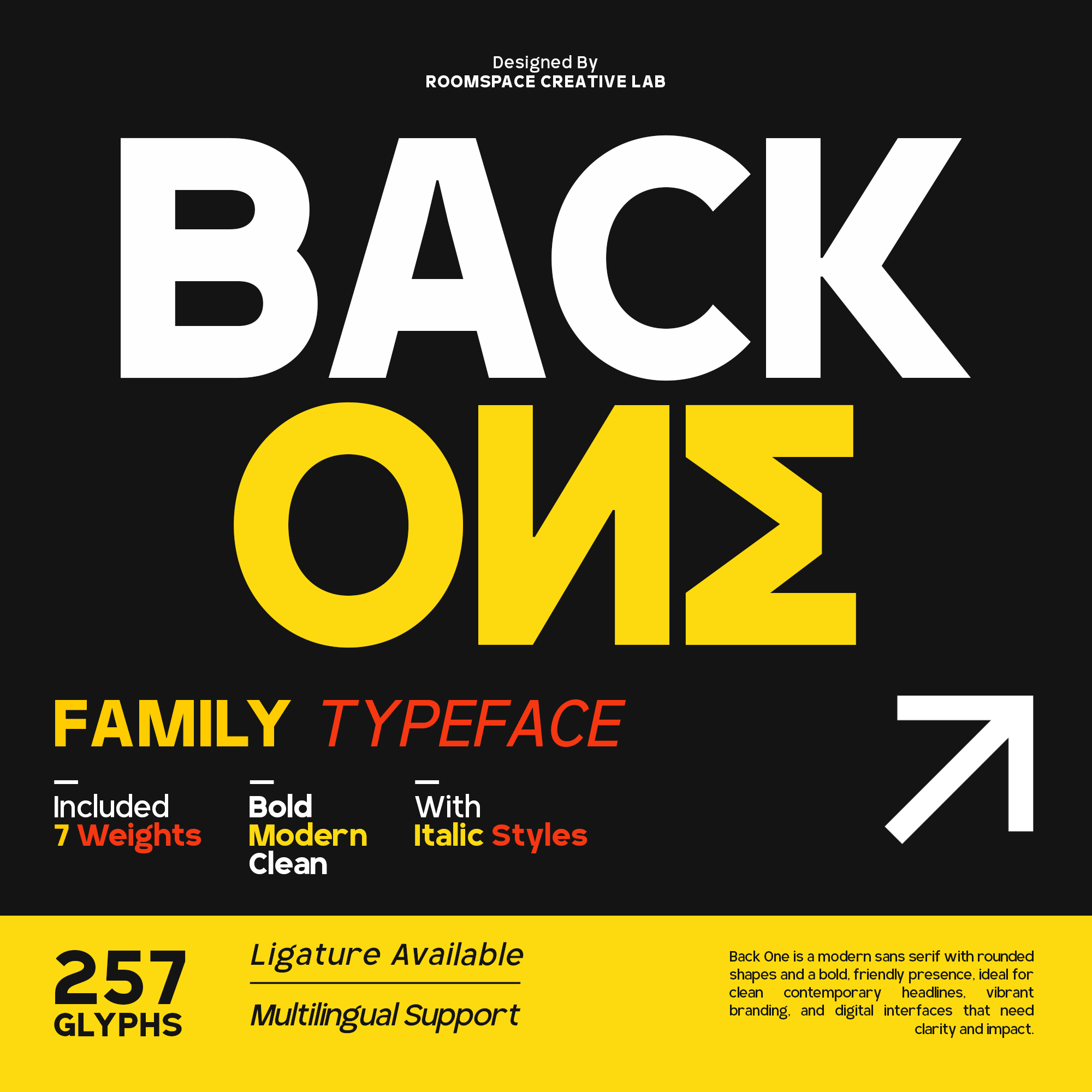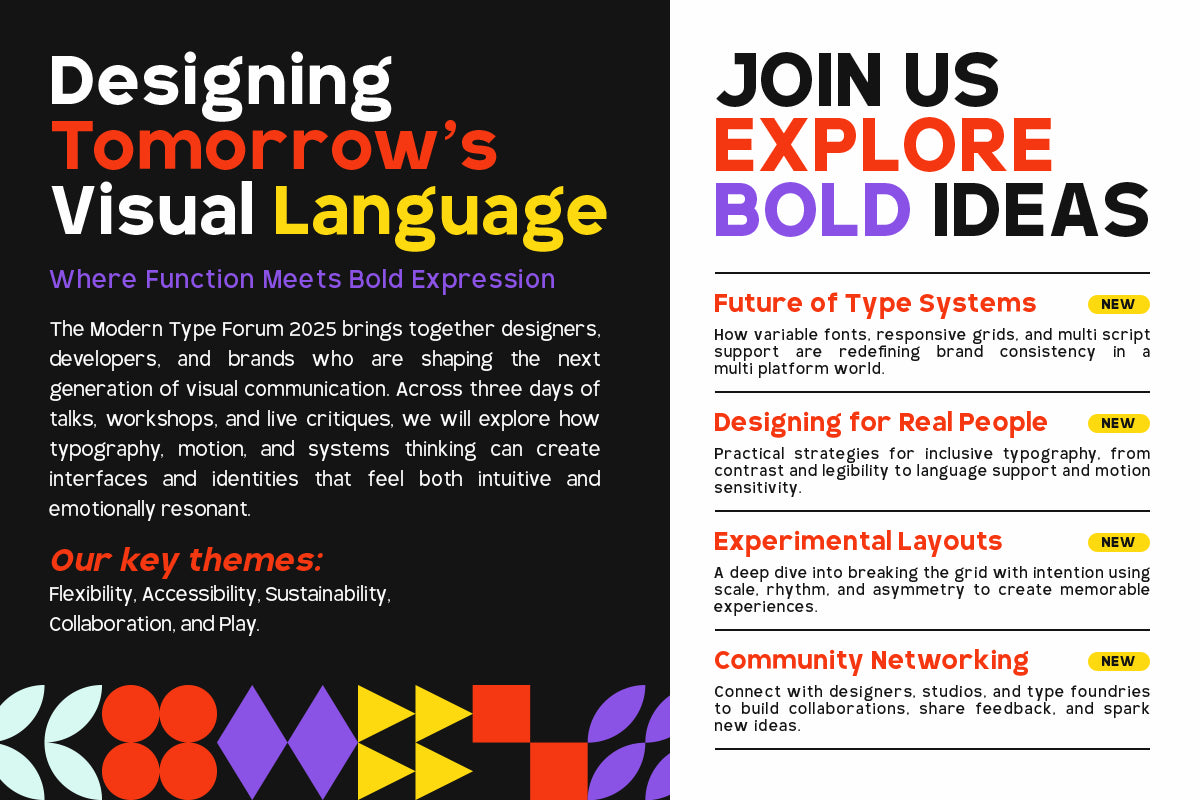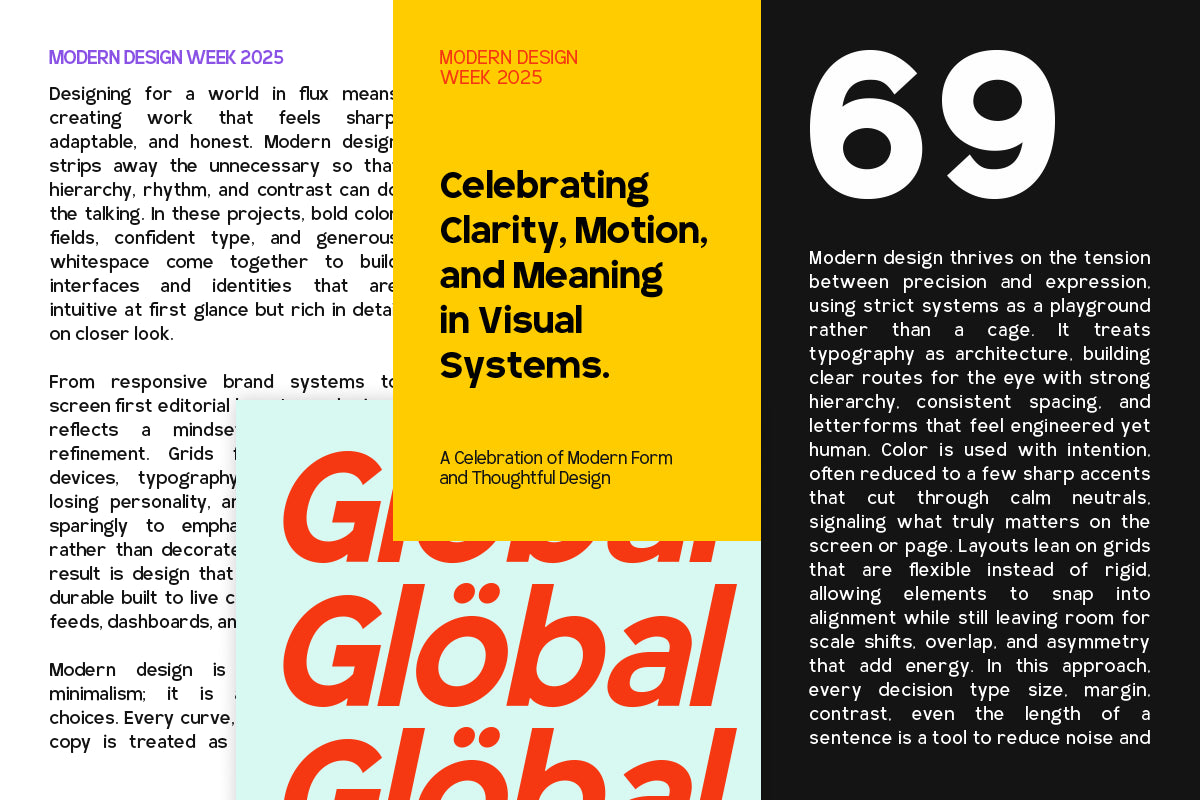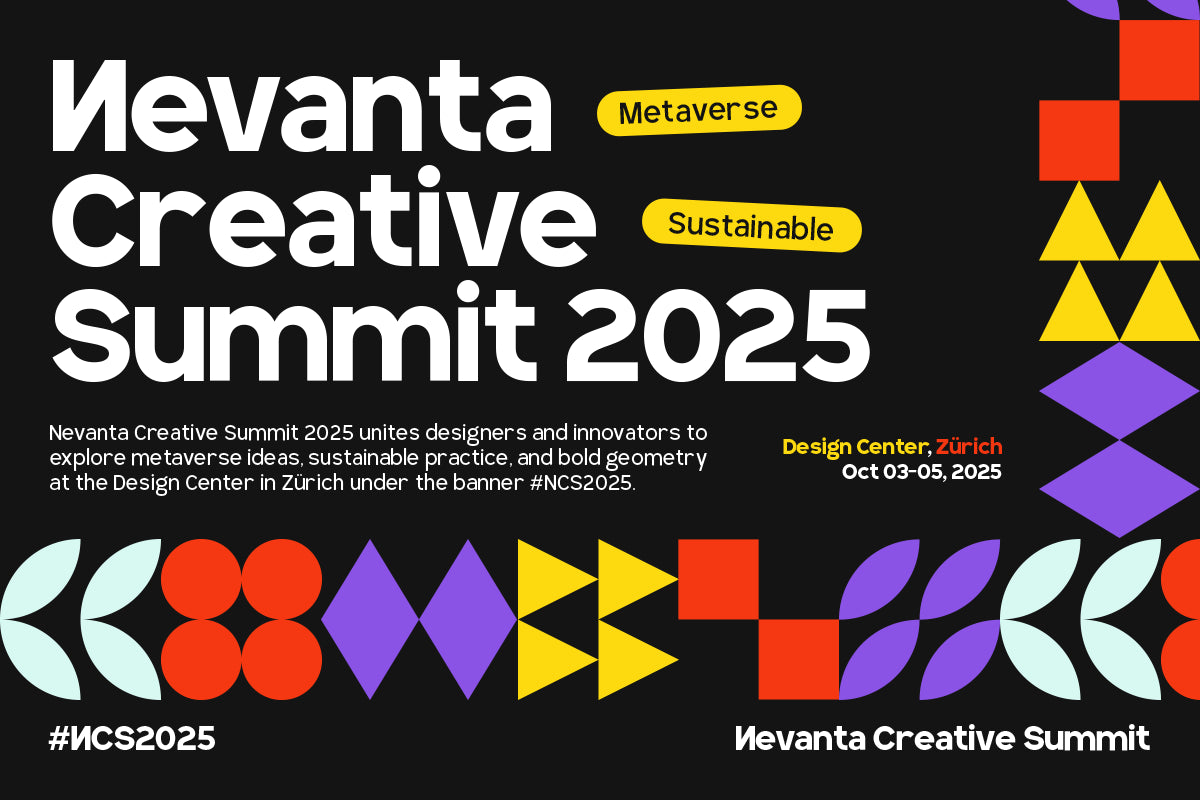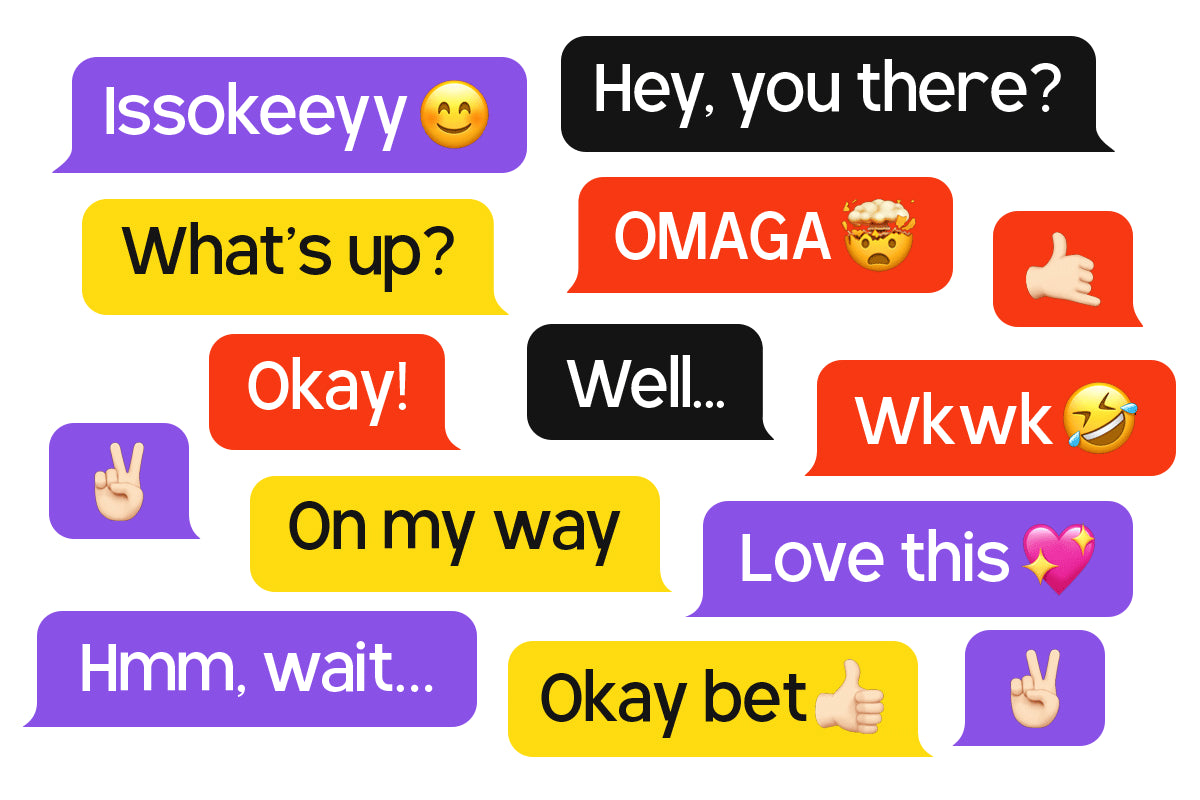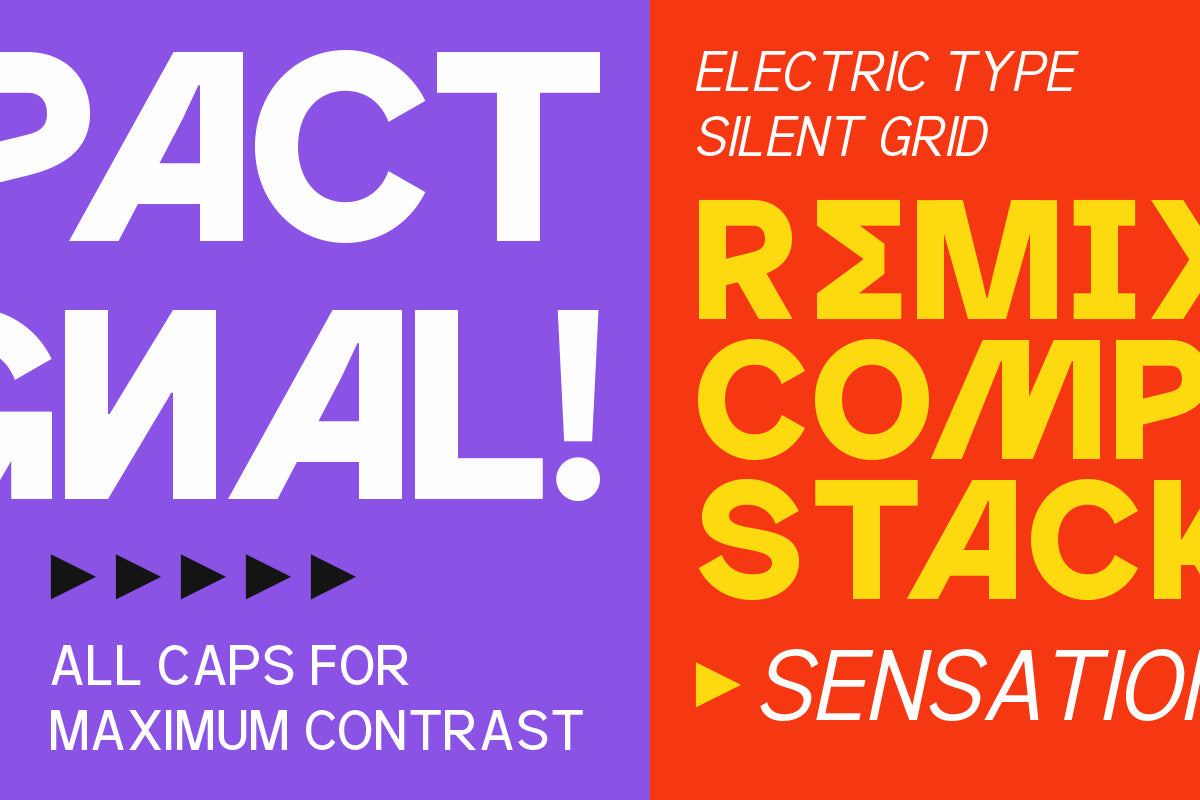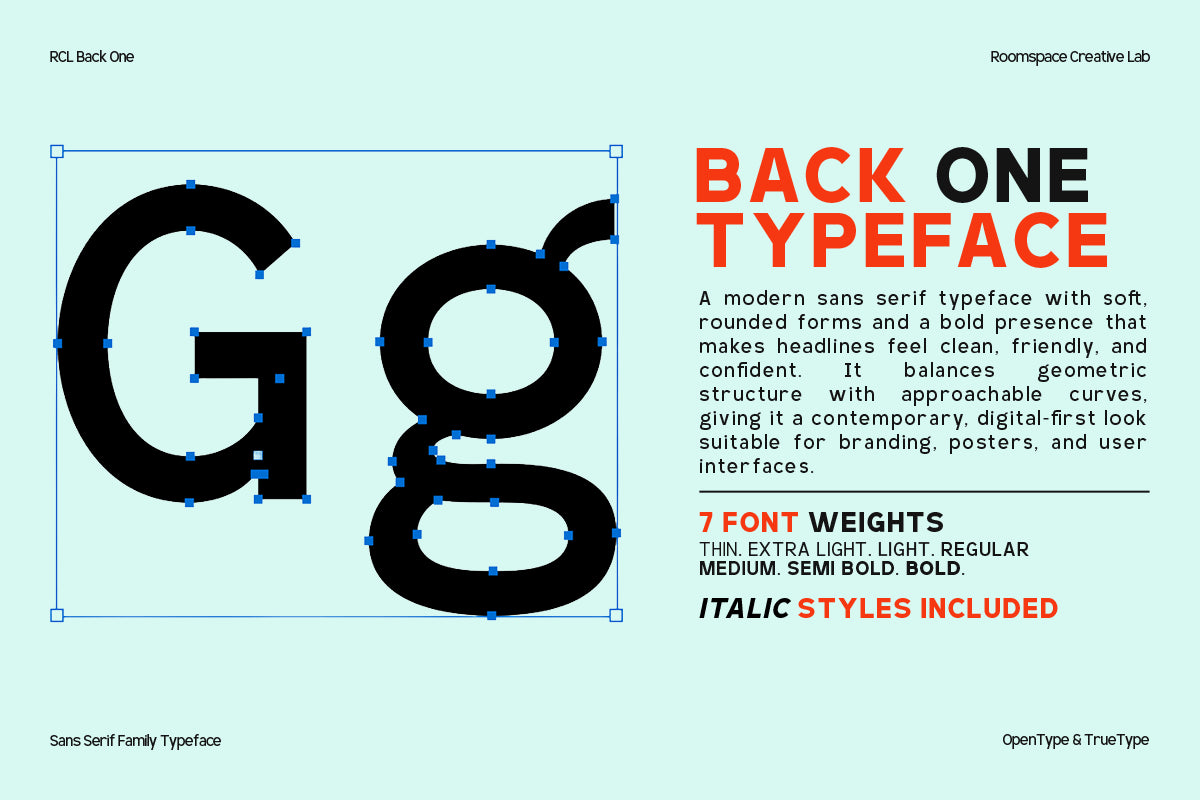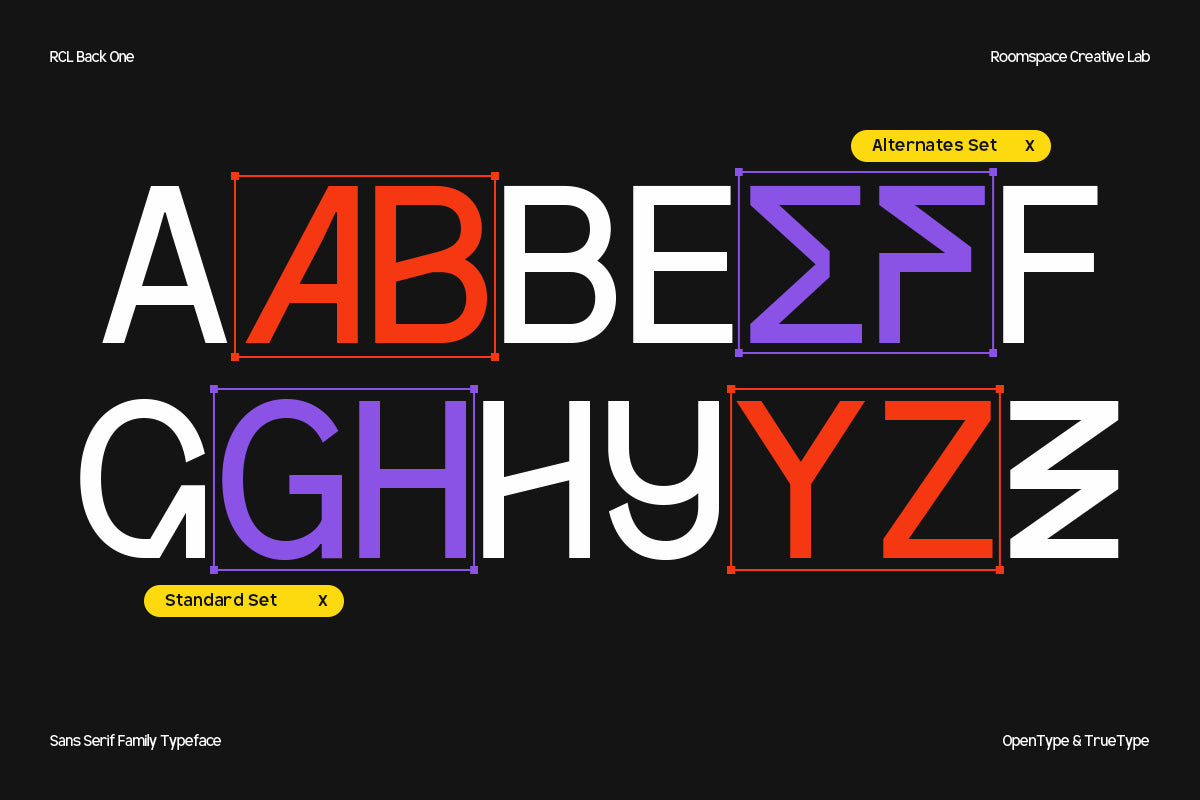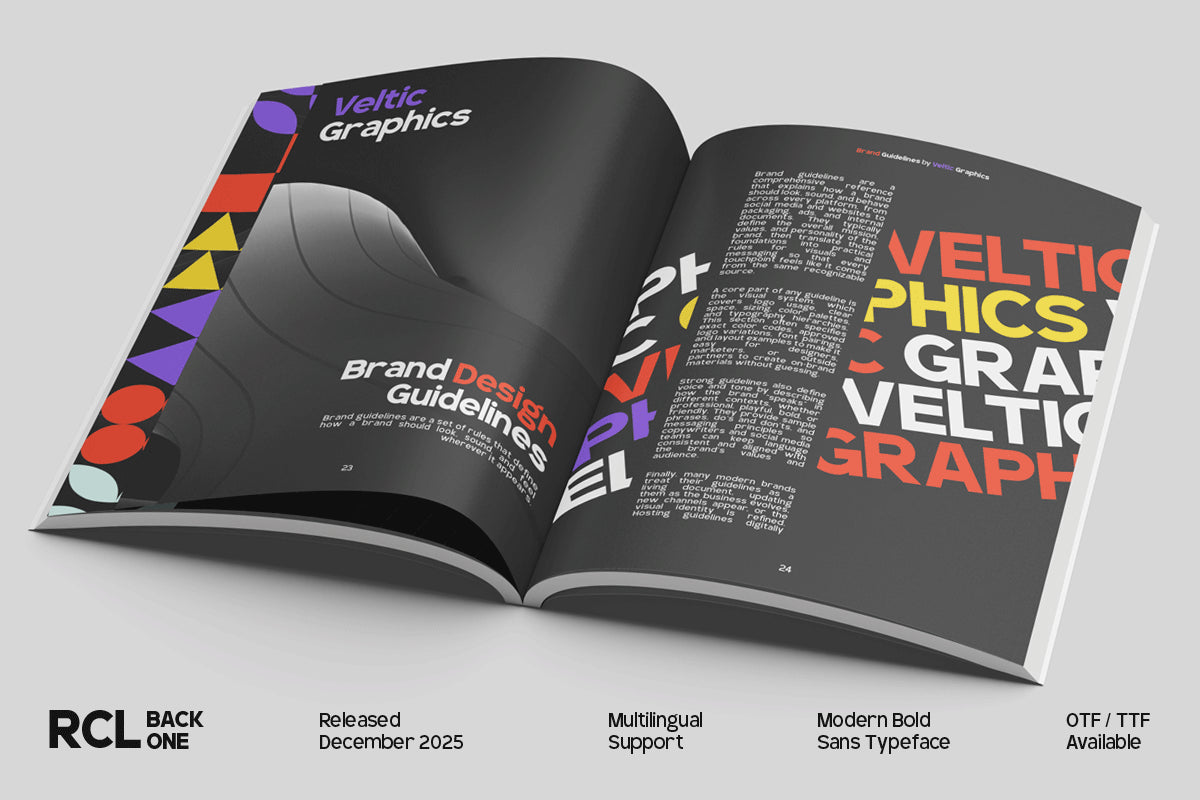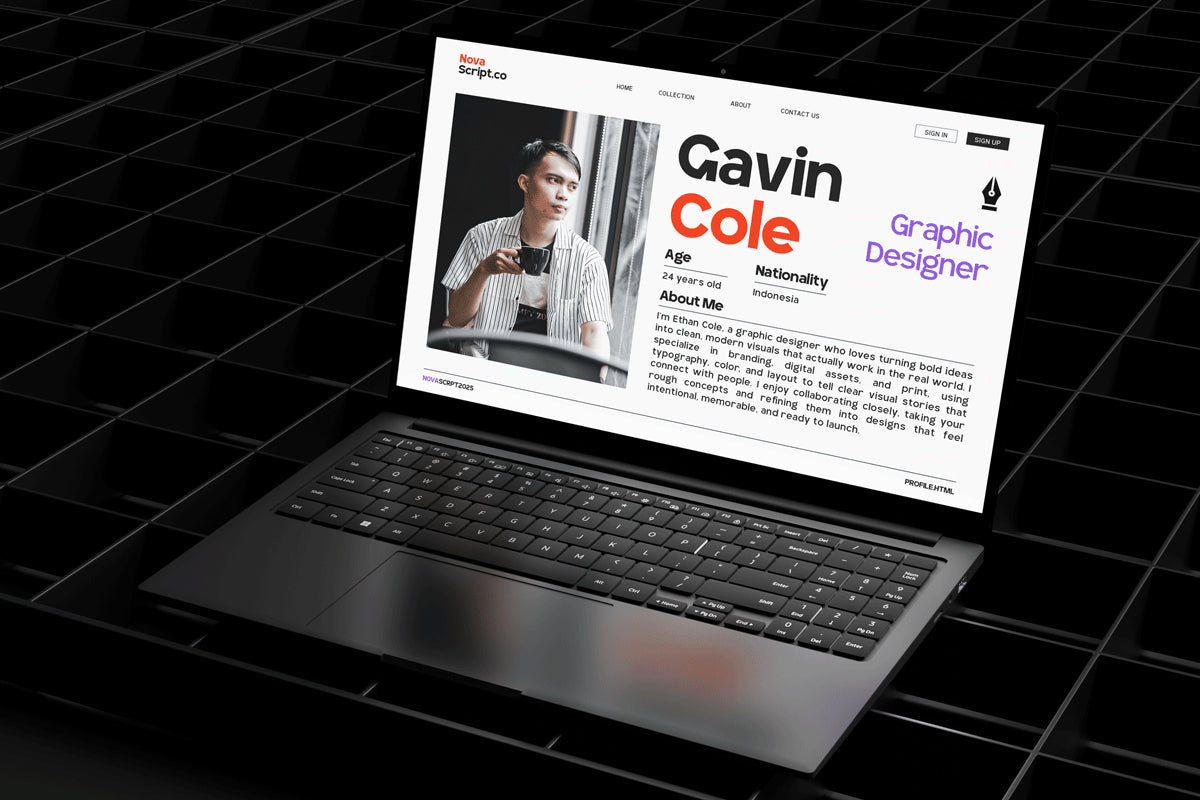
RCL BackOne – A Bold Modern Sans Font
Back One is a bold modern sans-serif font family designed to bring confidence, clarity, and strong visual impact to your designs. Built with wide proportions, clean geometry, and balanced spacing, Back One delivers a powerful presence while remaining highly readable and approachable. Its contemporary construction makes it ideal for brands that want to stand out boldly without losing a sense of professionalism and trust. Versatile by design, Back One works seamlessly across a wide range of applications including branding systems, logos, headlines, marketing materials, websites, and digital interfaces. The font’s solid structure and smooth letterforms ensure consistency and clarity at both large display sizes and smaller text settings. Whether you’re creating a modern startup identity, a corporate brand, or a striking editorial layout, Back One provides a reliable, modern typographic foundation that feels bold, confident, and effortlessly refined.
Font Features :
7 Weights + Italics
Modern sans-serif with bold character
Uppercase & lowercase
Multilingual support
Excellent readability for screen & print
The RCL BackOne is a bold modern sans-serif font family featuring 7 weights plus italics, designed for clarity and strong visual impact. With its clean geometry, balanced spacing, and multilingual support, it offers excellent readability for both screen and print applications.